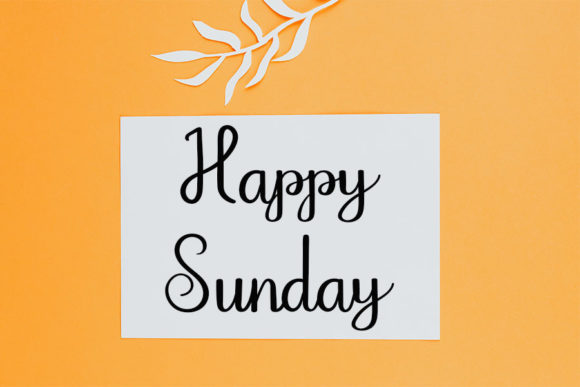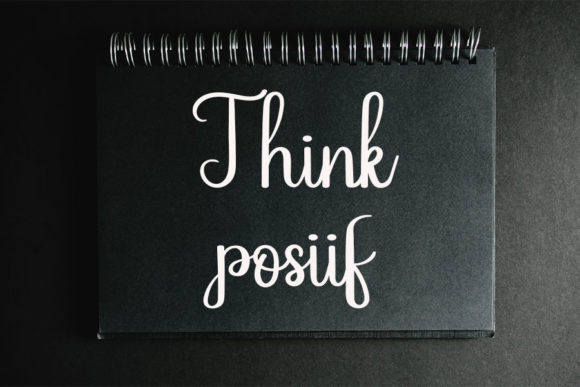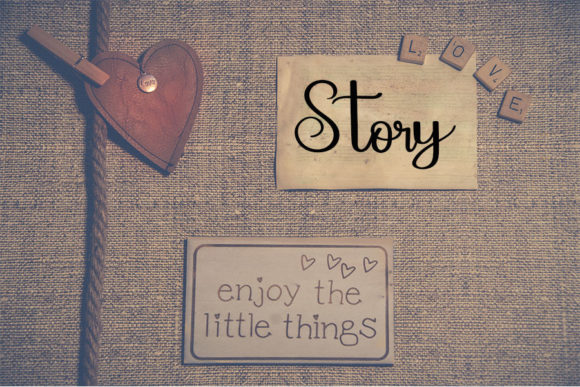
About Signature Mild Font
Signature Mild, a slim and delicate handwritten font, brings a sense of delicacy and joy to your designs. With its slender strokes and graceful charm, this font is perfect for projects that require a romantic and personalized touch, such as writing wedding invitations, cards, and any other design where a tender and individualized aesthetic is desired.
The slim design of Signature Mild imparts an understated elegance to the handwritten script, creating a look that is refined and charming. Each character is delicately crafted, contributing to the font’s overall grace and sophistication.
Whether you’re crafting wedding invitations or designing heartfelt cards, Signature Mild elevates the emotional tone with its personalized and gentle quality. The font captures the essence of romance, making it an ideal choice for projects that aim to convey love, warmth, and intimacy.
The delightful handwritten style of Signature Mild adds a unique and personal touch to your designs. Its versatility allows it to adapt seamlessly to various applications, ensuring a harmonious and personalized aesthetic in every context.
Choose Signature Mild to infuse your projects with the sweetness and delicacy of a handwritten signature. Let this font be the perfect companion for expressing romance and joy, turning your designs into heartfelt and memorable creations.